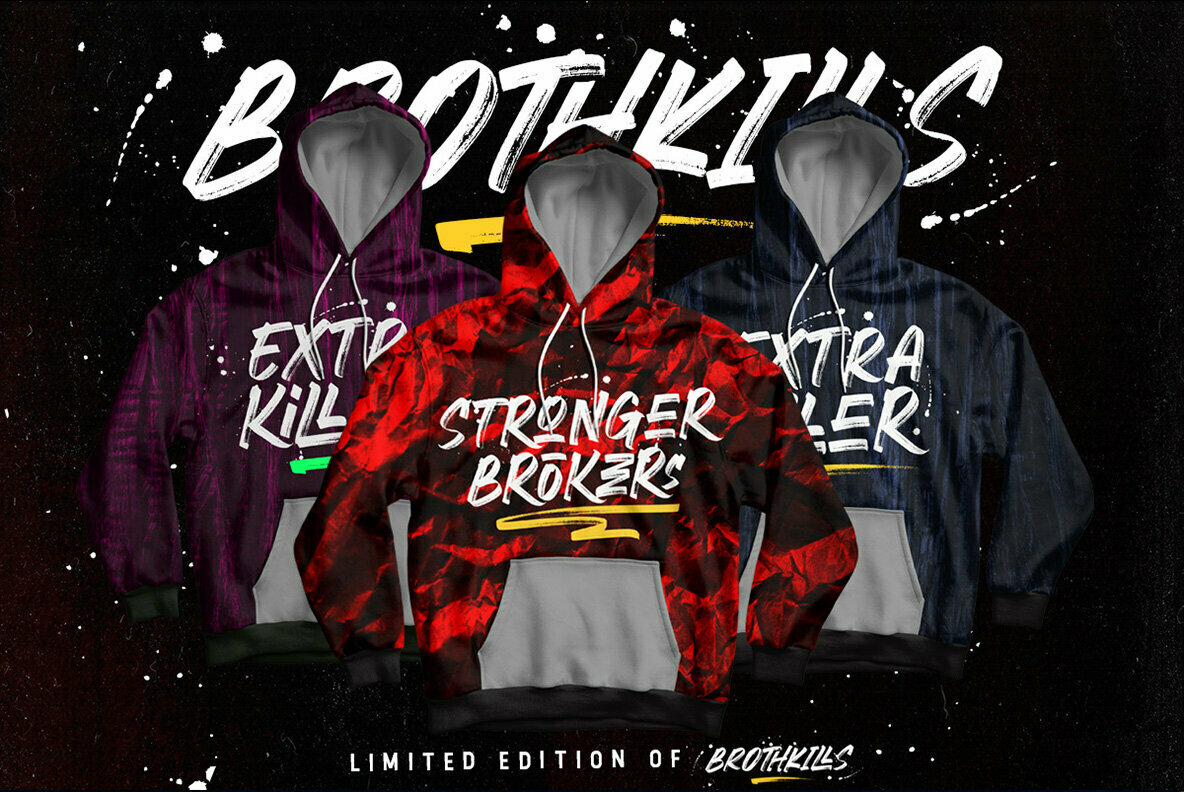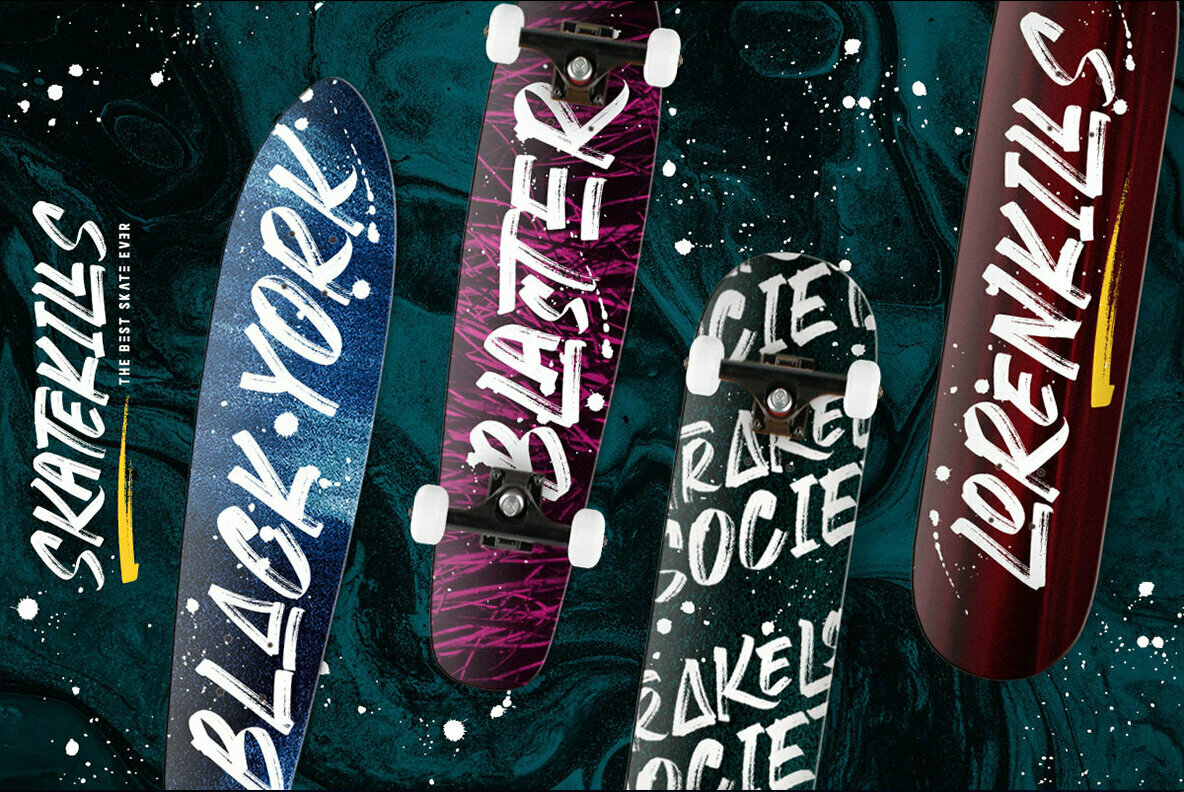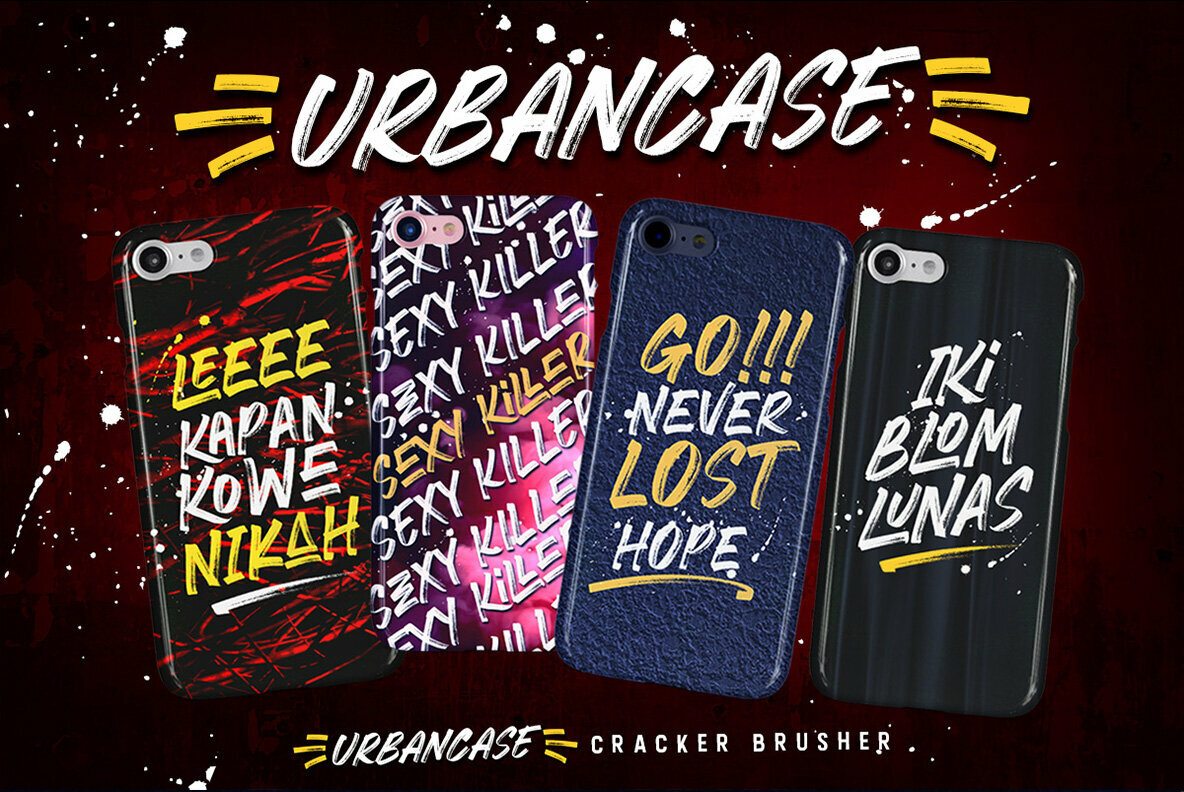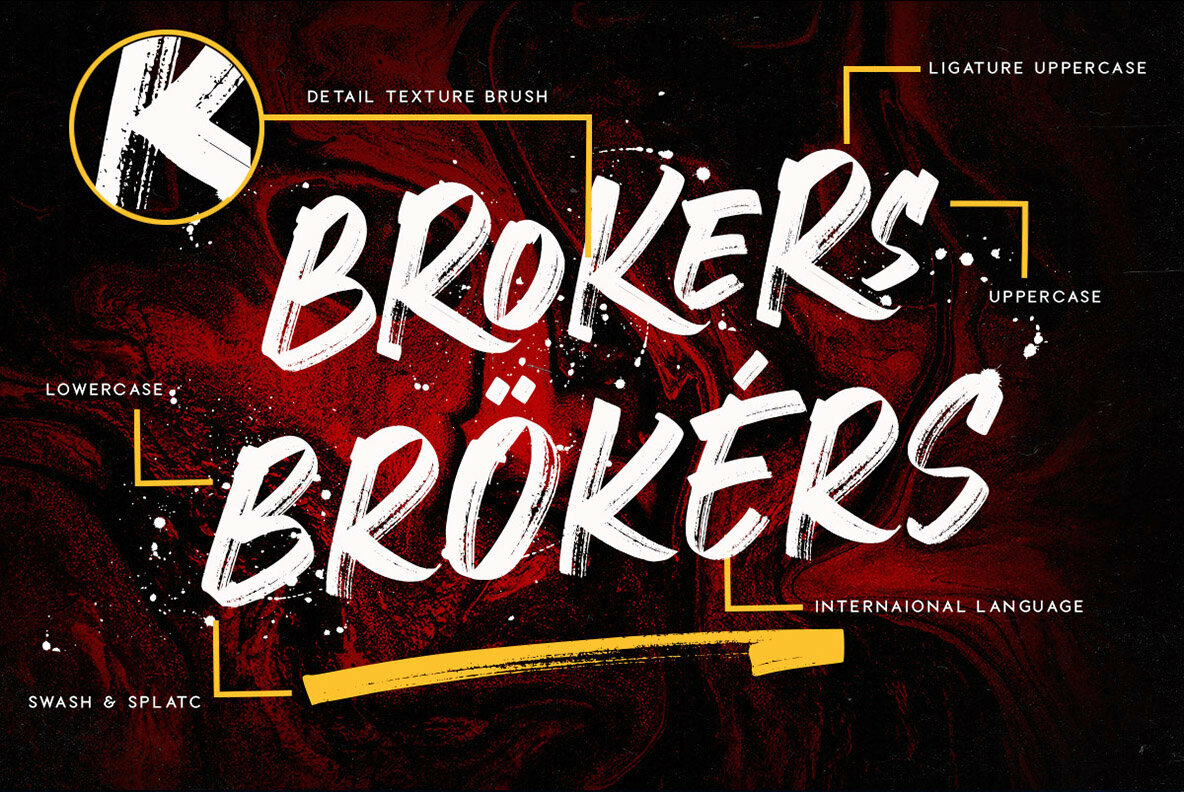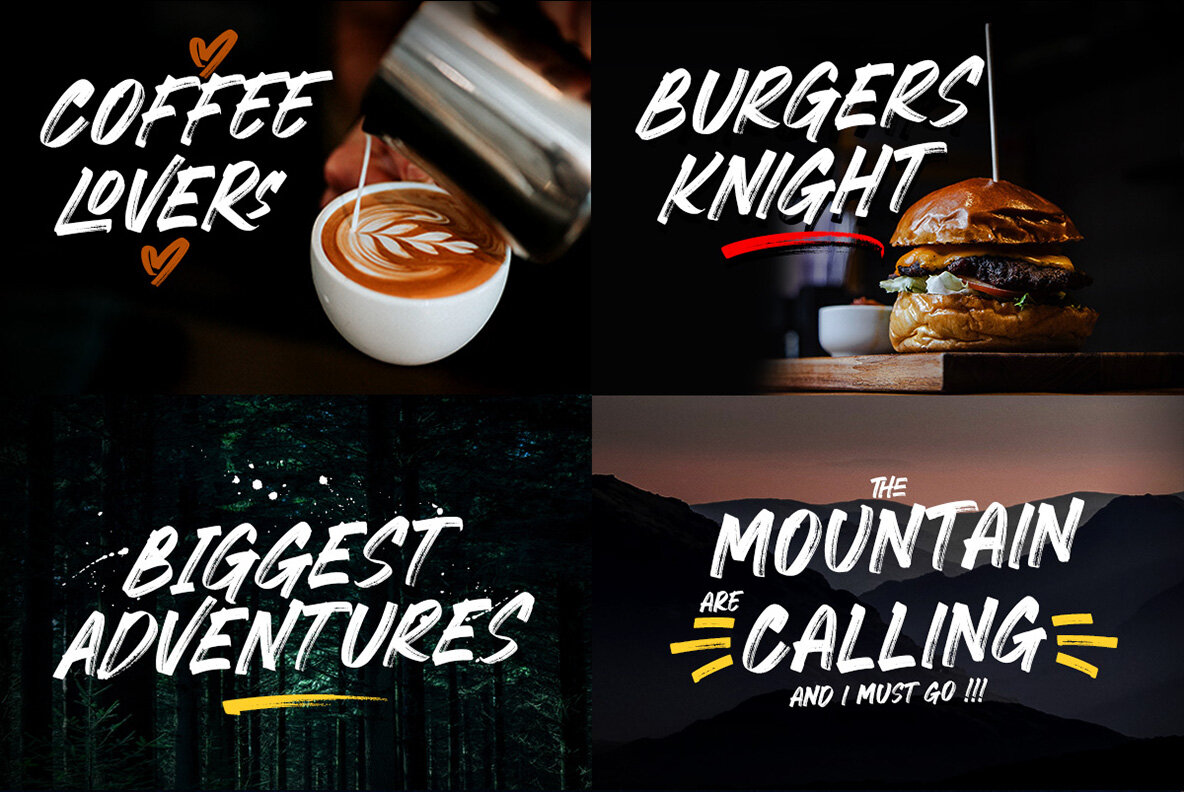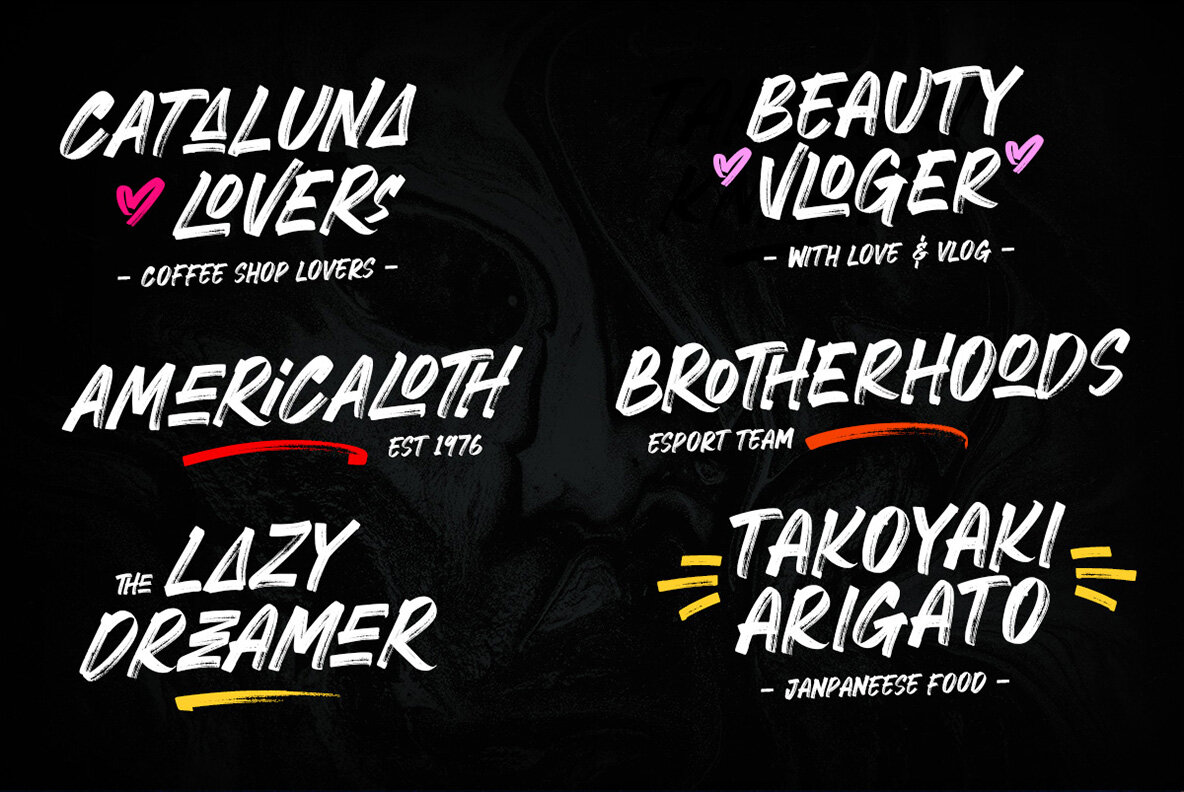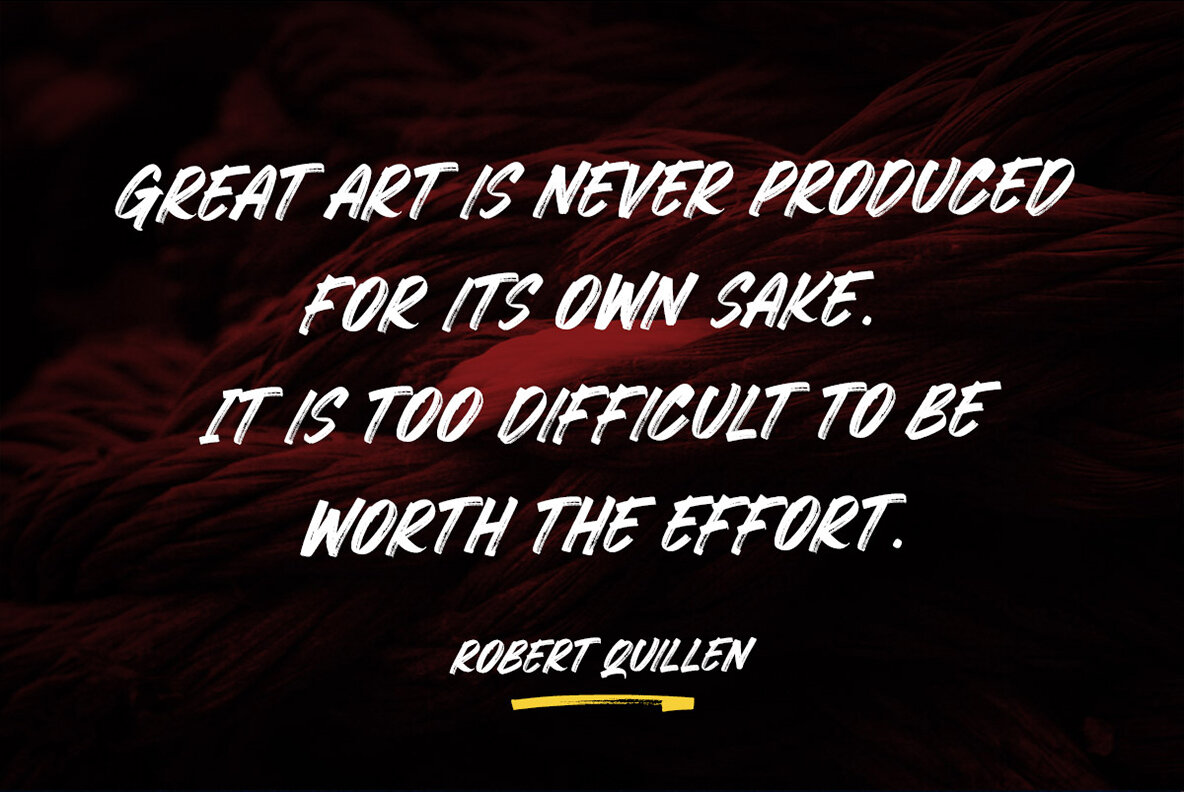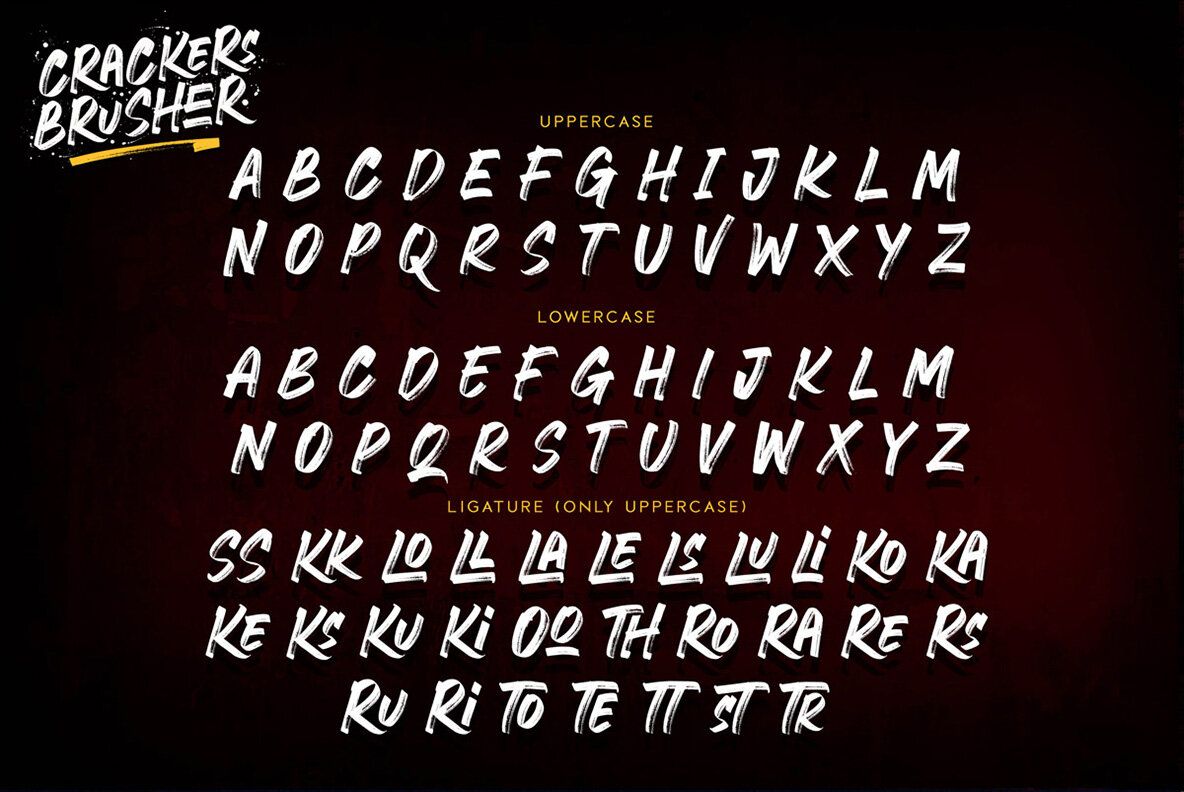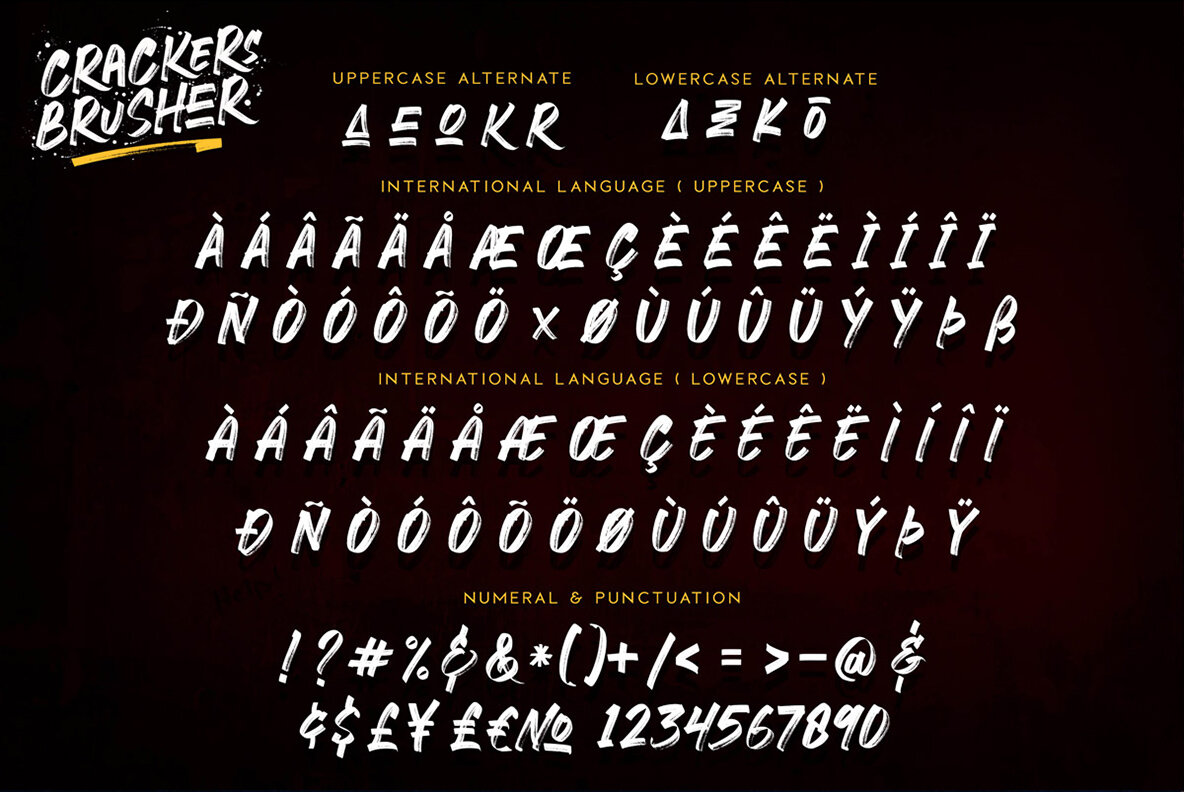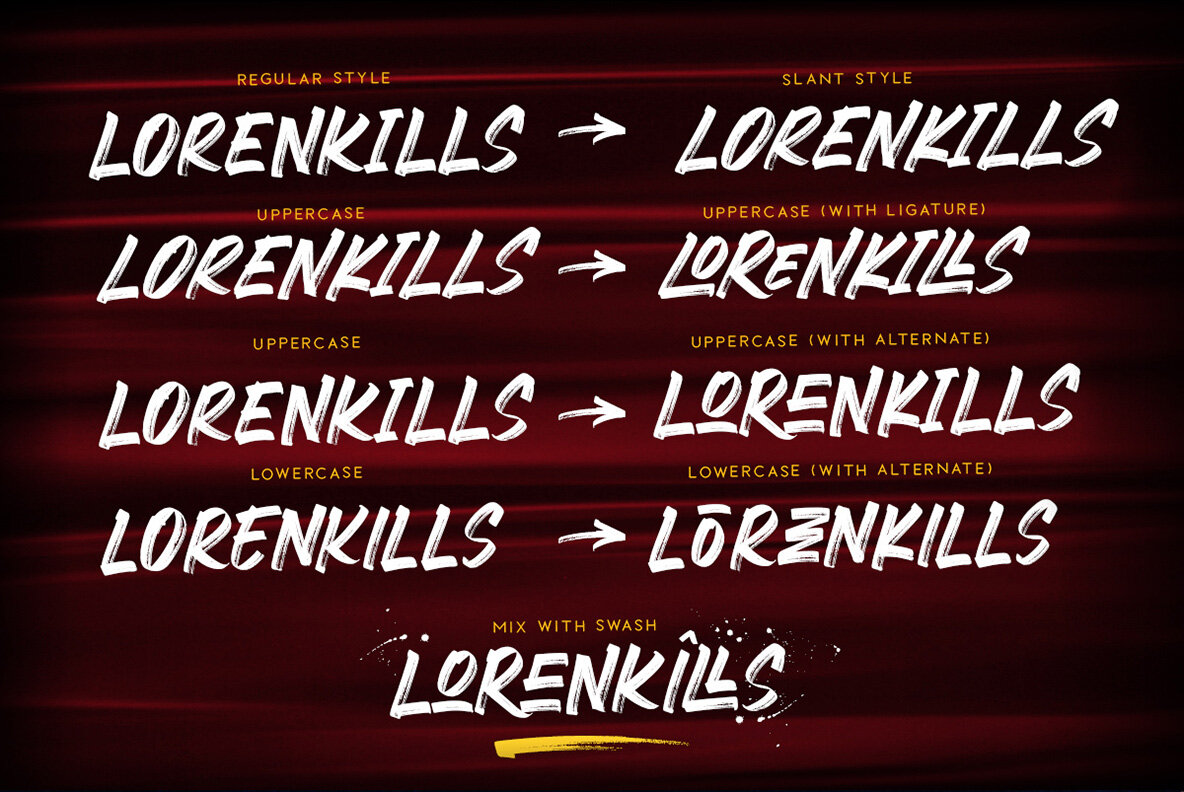
CRACKERS BRUSHER Font
Crackers Brusher is an imaginative brush font that stands out with its rough textures and expressive swashes. This font is a powerful tool for elevating projects with its dynamic presence. Whether you're designing titles, logos, or apparel, the raw energy of Crackers Brusher adds instant character. With two styles—regular and slant—and enhanced by OpenType features, including 28 ligatures, this font is versatile enough to handle everything from creative t-shirt designs to engaging website graphics.Crackers Brusher: Energetic Brush Font with Versatile Styles
Fuel your designs with Crackers Brusher's dynamic strokes, perfect for bold and energetic creations.